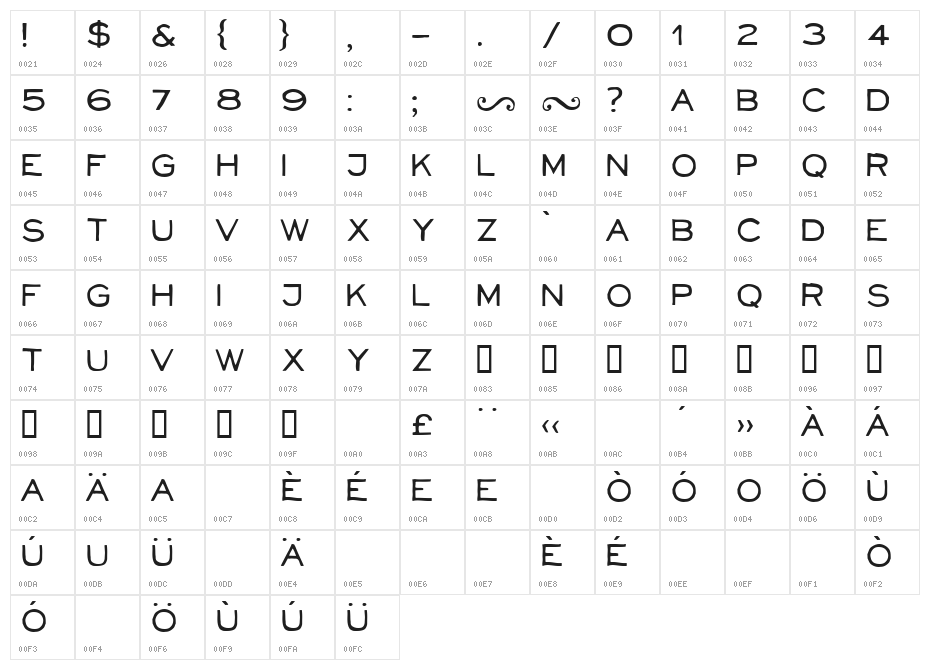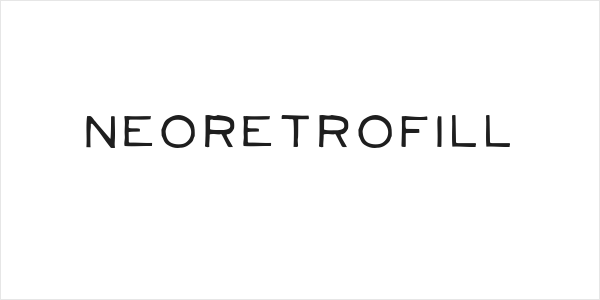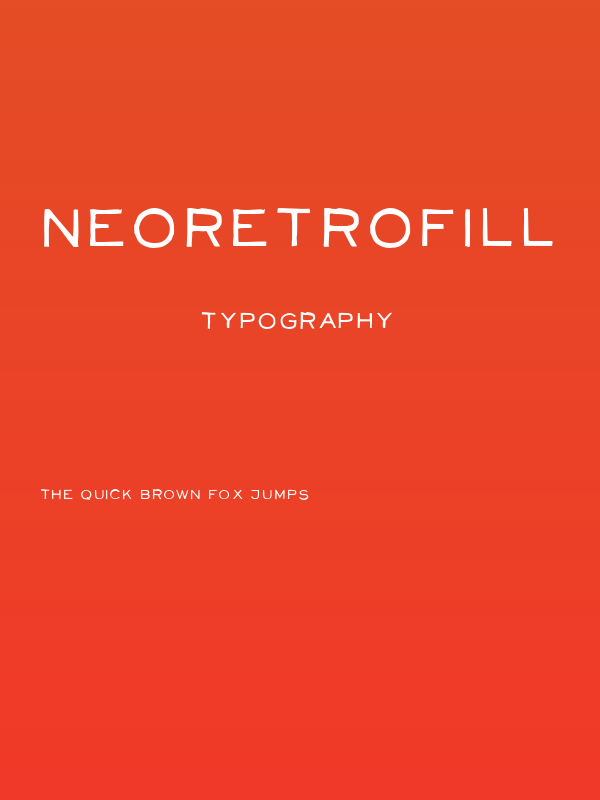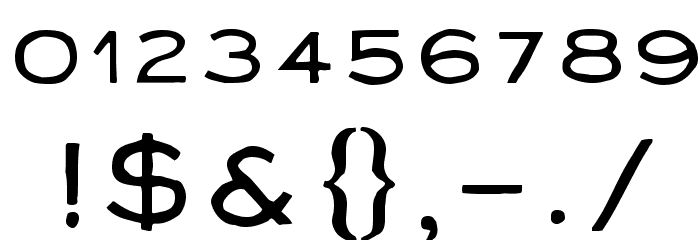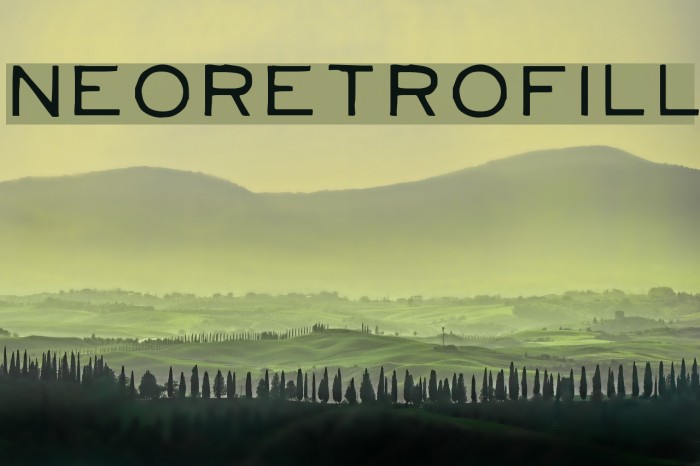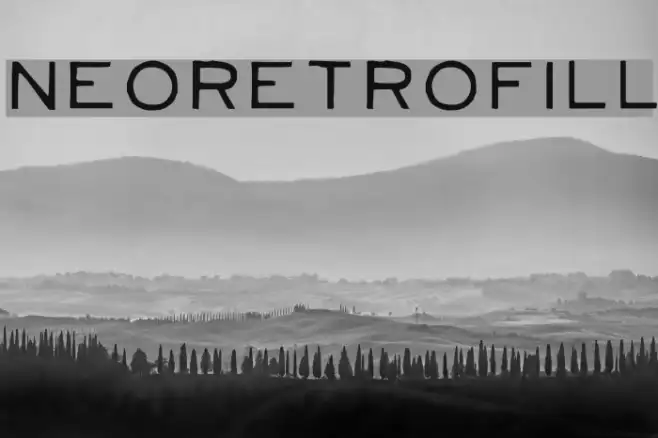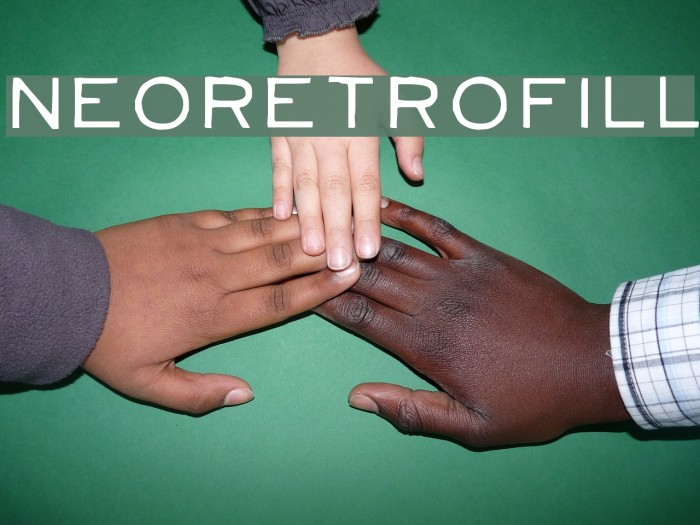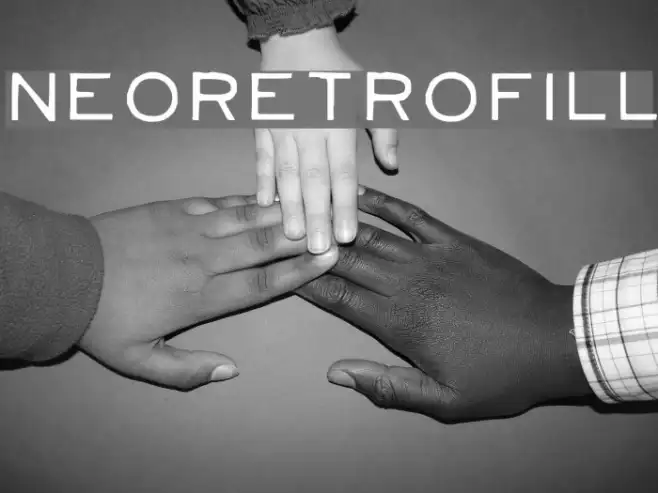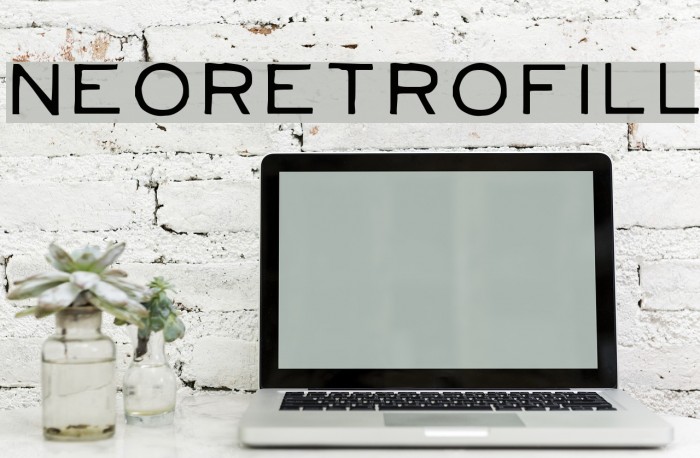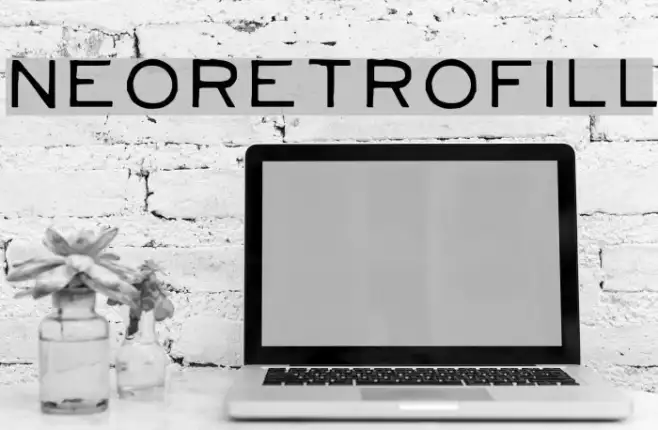
NeoRetroFill Font
NeoRetroFill Description
This font features a modern and clean design with a geometric structure. The uppercase and lowercase letters maintain a consistent stroke width, giving it a uniform appearance. The characters are slightly rounded, adding a touch of softness to the otherwise sharp and precise lines. The numerals and special characters follow the same design principles, ensuring a cohesive look across all elements. The font is versatile, making it suitable for a variety of design projects that require a contemporary and professional aesthetic.
| Proposed Projects | Ideal for branding, web design, advertising, and editorial layouts. |